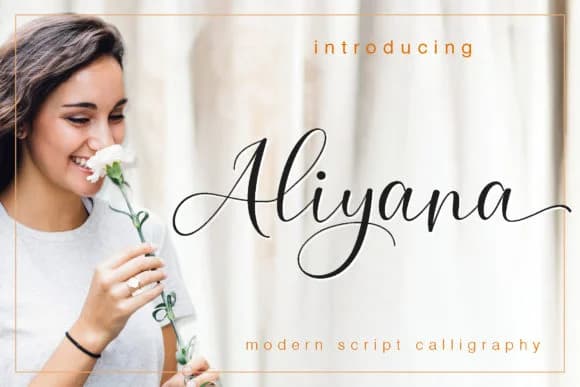
1 / 9About Aliyana Script Font
Aliyana Script Font by Sulthan Studio is a flowing calligraphic typeface that brings refined sophistication to contemporary typography. With carefully crafted letterforms connected by smooth, elegant strokes, this handwritten-style font excels at creating luxury wedding invitation suites, premium cosmetics packaging, elegant greeting card designs, and sophisticated social media headers for boutique brands. The artisanal quality embedded throughout each character makes it an exceptional choice for designers seeking to craft upscale visual identities that stand out in today's competitive creative landscape.
Aliyana's versatile construction makes it suitable across diverse design applications without sacrificing its distinctive visual appeal and character. Whether designing premium brand marks, crafting personalized monogram artwork, enhancing luxury product labels, developing bespoke packaging for artisanal goods, or creating exclusive stationery sets, this script delivers the nuanced elegance that transforms ordinary designs into memorable visual experiences. The font's balanced letterforms perform equally well in digital and print contexts, making it reliable for everything from screen-based graphics to traditional physical collateral. This refined typeface offers you a handcrafted aesthetic that genuinely resonates with discerning audiences and design-conscious consumers, bringing authentic artistry to every project.
Aliyana Script Font is a script font that shines as a display or heading face. Pair it with a clean sans-serif or serif font for body text β the contrast creates a clear hierarchy while the two styles stay balanced and easy to read.